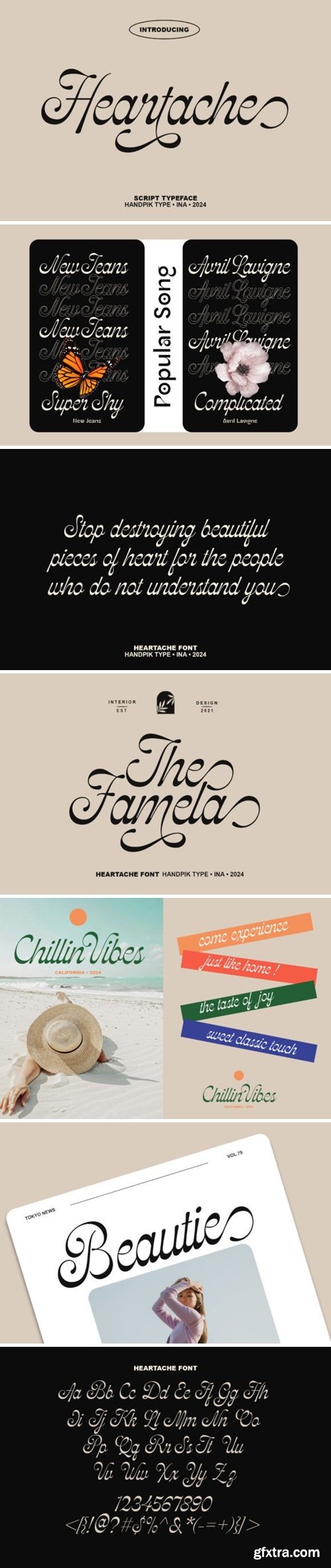
Heartache 3402144
Heartache Script will perfect for many project: book, magazines, logo, branding, photography, quotes, blog header, poster, advertisements, etc.